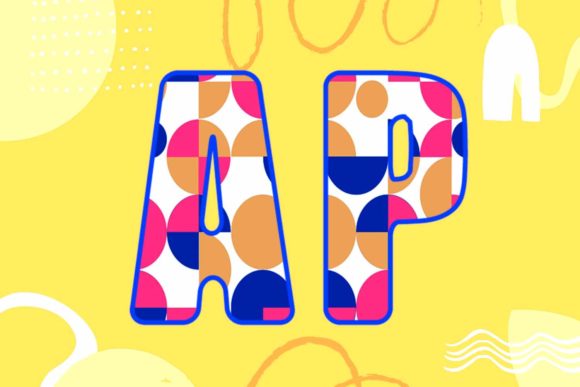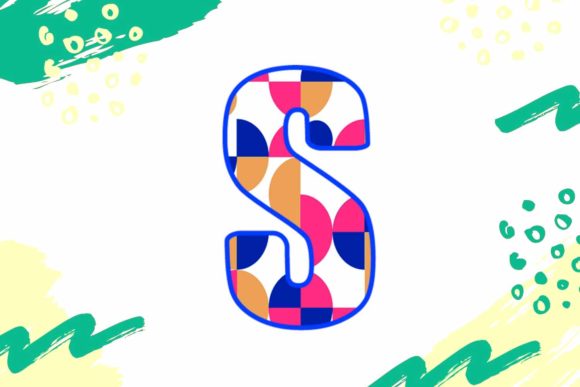
Introduction to Geolife Font
Geolife color font will take you back in time with its retro pattern of colorful circles that decorates each character.
It is perfect for your next fun and playful design project such as flyers, invitations, greeting cards and so much more Note.